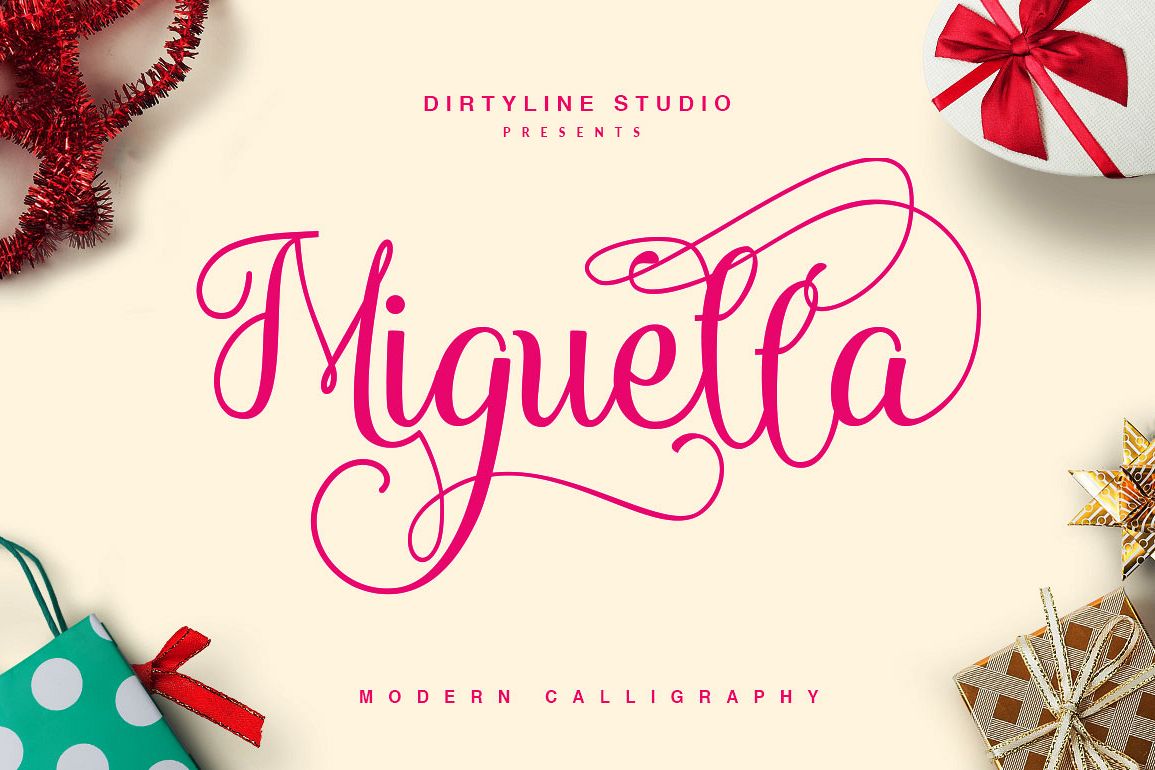
Miguella Script
Miguella is a script typeface beautiful calligraphy and modern. This font is suitable for a wide range of products each project, such as wedding invitations, greeting cards, correspondence, and various other purposes and many more. This language support that some international fonts, there are 397 glyphs and 158 Altenate so many options that you can use for your projects.